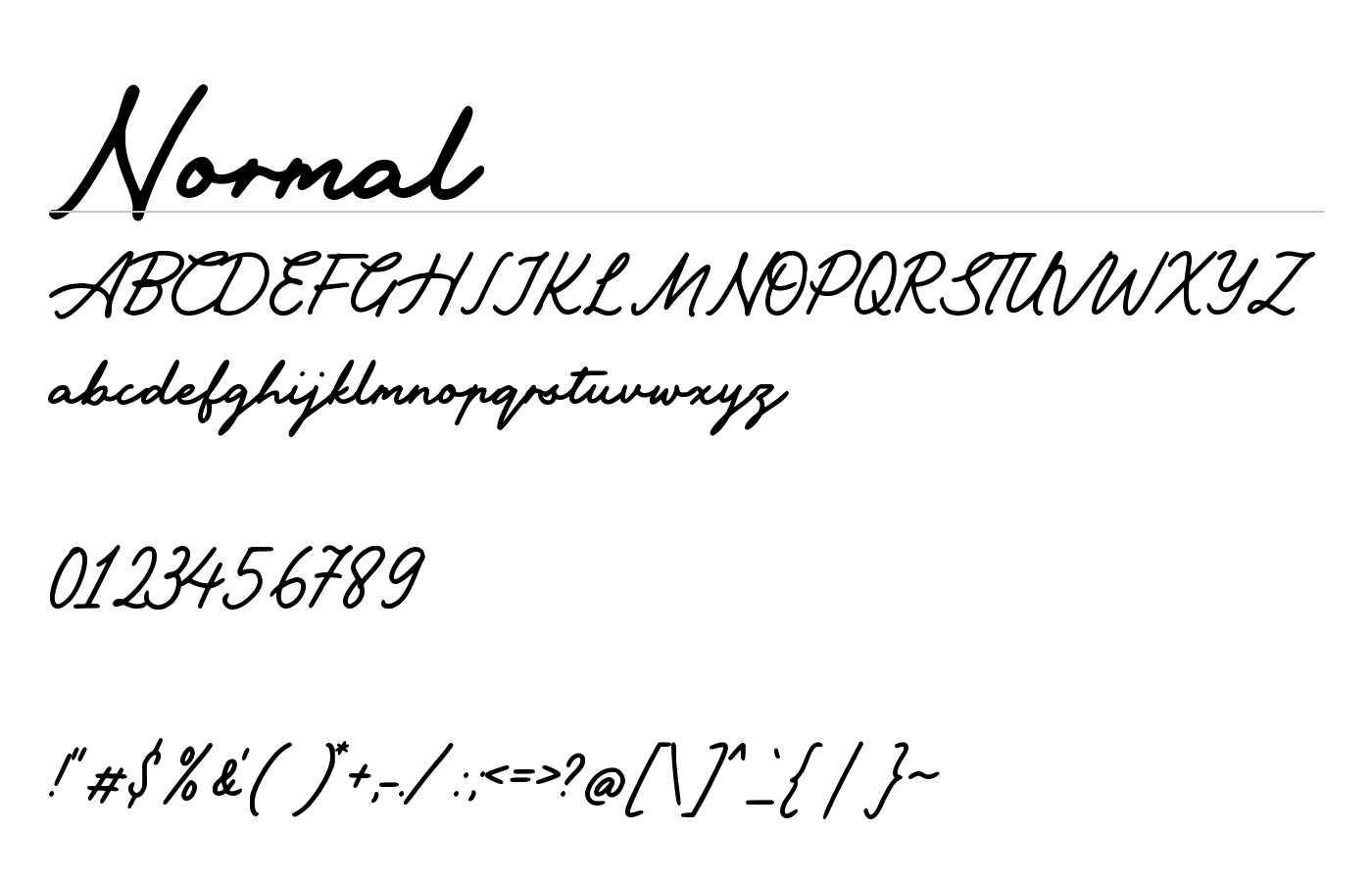
American Mountain Font is a casual, handwritten script with a natural and flowing style that mimics genuine penmanship. Its light and slightly condensed letterforms give it a friendly, approachable feel, making it ideal for personal branding, invitations, or creative projects seeking an authentic, informal touch. This font works well in both headlines and short text where a warm, human connection is desired.
American Mountain Font
About American Mountain Font